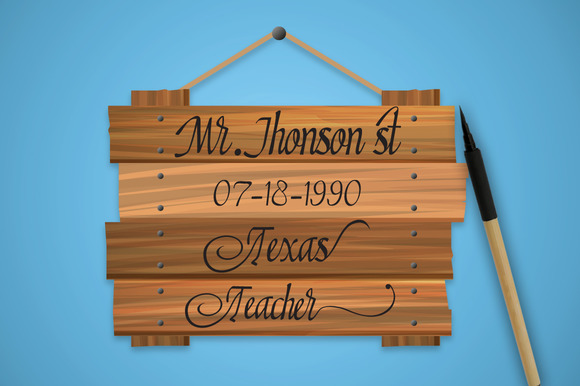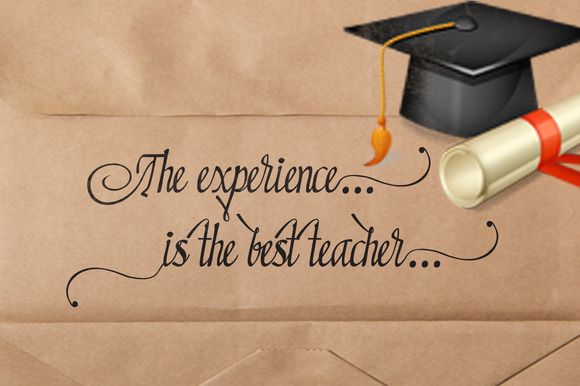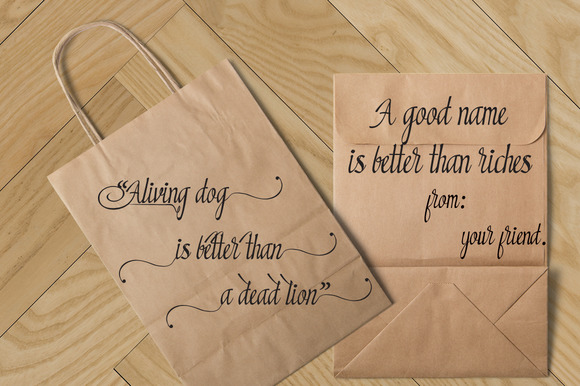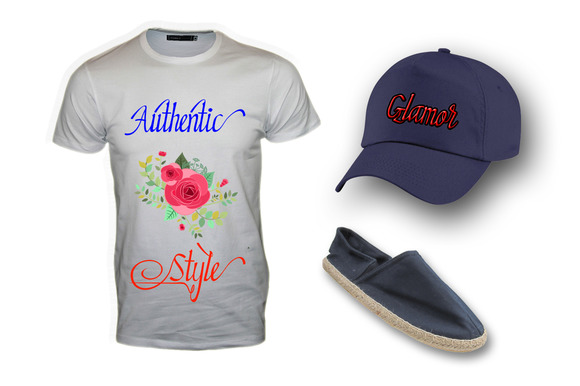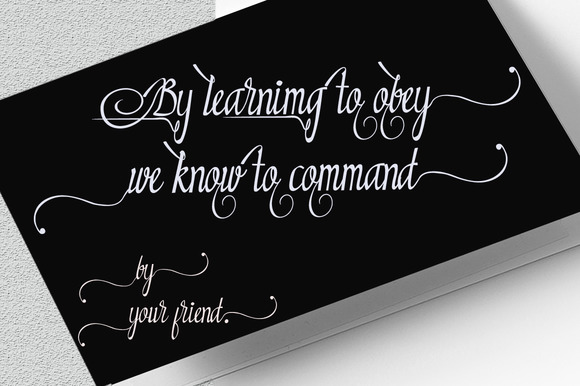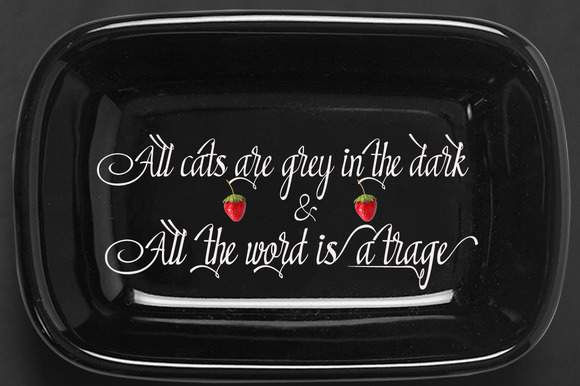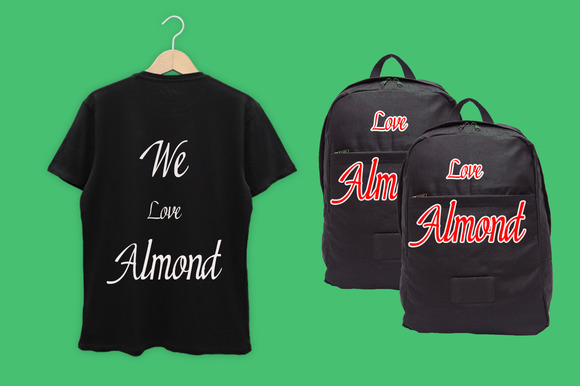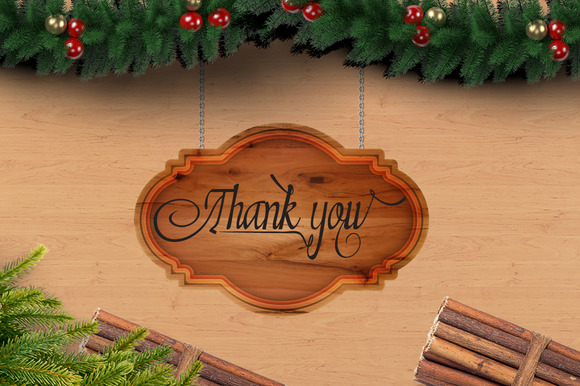
Almond Font
About Almond Font
Almond is a unique brush script font. With this modern calligraphy typeface, you can make endless designs such as headings, logos, invitations, t-shirt designs, greeting cards, posters, labels, book covers.